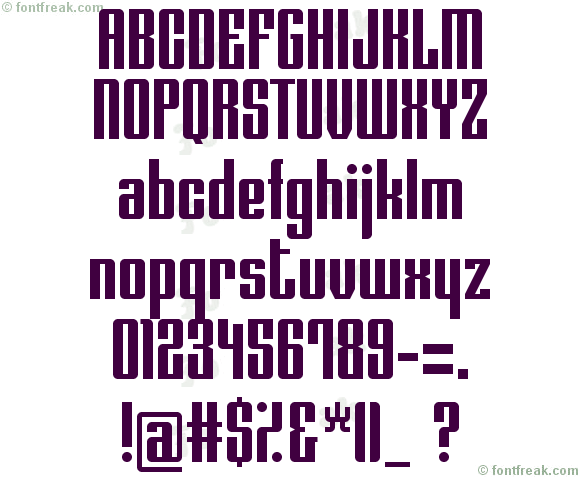
Night Train 382
Night Train 382, designed by Frederic Rich, is a striking display font that captures attention with its bold and modern aesthetic. This font belongs to the sans-serif category, characterized by its clean lines and lack of decorative strokes. The visual appeal of Night Train 382 lies in its strong stroke weight and minimal contrast, creating a cohesive and impactful look. The spacing is well-balanced, allowing for readability while maintaining a contemporary edge. The design features angular forms and geometric shapes that evoke a sense of movement, reminiscent of the speed and energy associated with trains.
This font is particularly versatile, making it suitable for a variety of use cases. It shines in promotional materials such as movie posters, where its bold presence can convey excitement and action. Additionally, Night Train 382 is an excellent choice for branding projects, particularly for businesses in the transportation or tech industries, where a modern and dynamic image is crucial. Its unique style also lends itself well to event flyers and music festival posters, helping to create a vibrant atmosphere. Small business owners and content creators will find this font useful for creating visually appealing social media graphics and advertisements.
The target audience for Night Train 382 includes graphic designers, small business owners, and content creators looking to elevate their visual communication. This font's ability to stand out while maintaining clarity makes it an excellent choice for anyone aiming to make a memorable impression.
In conclusion, Night Train 382 font free download offers a unique blend of boldness and modernity that can enhance various design projects. Its distinctive characteristics and versatility make it a valuable addition to any designer's toolkit, ensuring that your designs will leave a lasting impact.